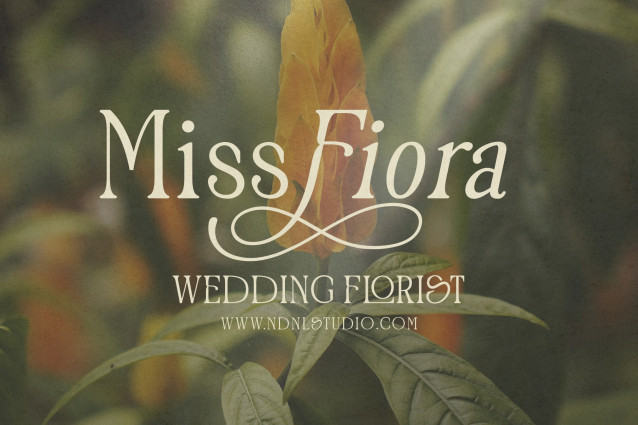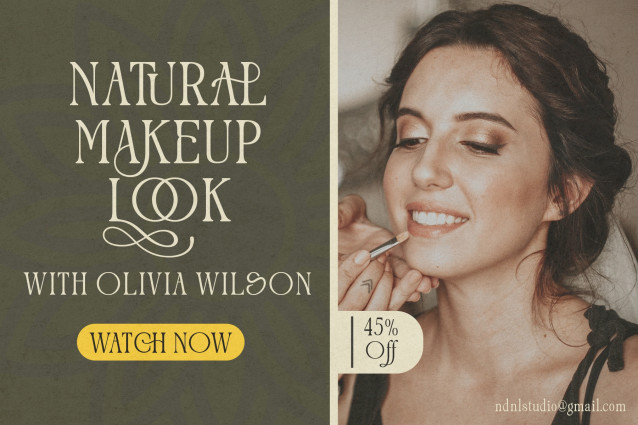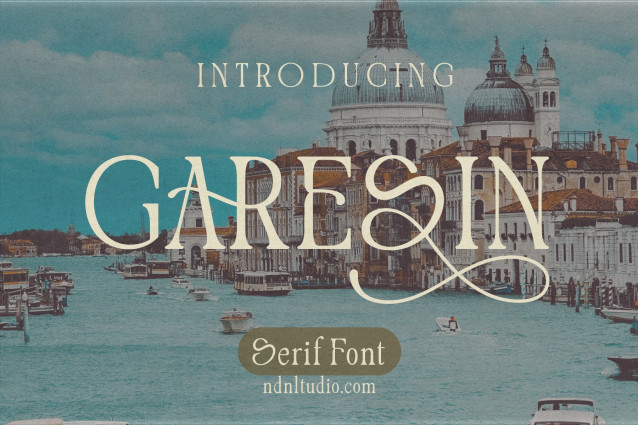
Garesin – Serif Font
Garesin is a graceful serif font that blends timeless elegance with artistic details. Featuring refined letterforms, beautiful swashes, and stylish ligatures, Garesin brings a sophisticated and romantic touch to every design. Inspired by classic European aesthetics, this font is perfect for creating luxurious branding, editorial layouts, wedding invitations, logos, packaging, and social media content.
With its balanced proportions and decorative characters, Garesin offers versatility for both modern and vintage-inspired projects. Whether used for headlines or elegant typography, Garesin adds charm, personality, and a distinctive visual presence to your work.